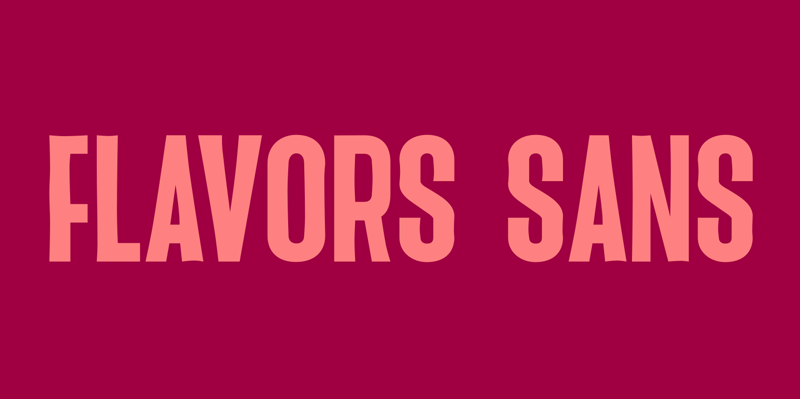
Suitable for use in casual themed design applications, this font is made with a unique shape and condensed width, as well as a strong authenticity value. Flavor sans consist 1 style, namely : - Regular |